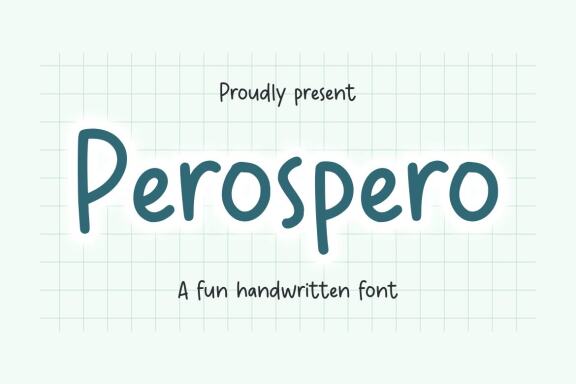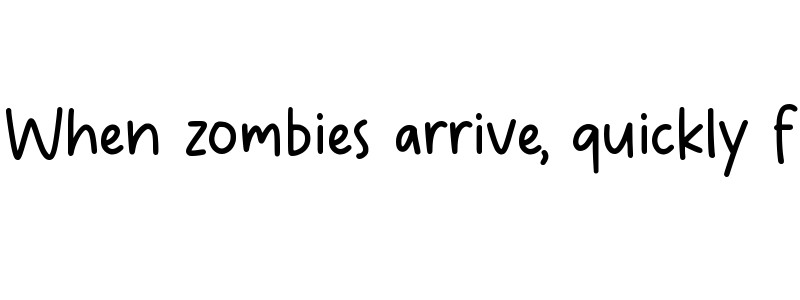
Perospero FREE Font
Proudly Present, Perospero
Perospero A Fun Handwritten Font
Perospero is perfect for product packaging, branding project, megazine, social media, wedding, or just used to express words above the background.